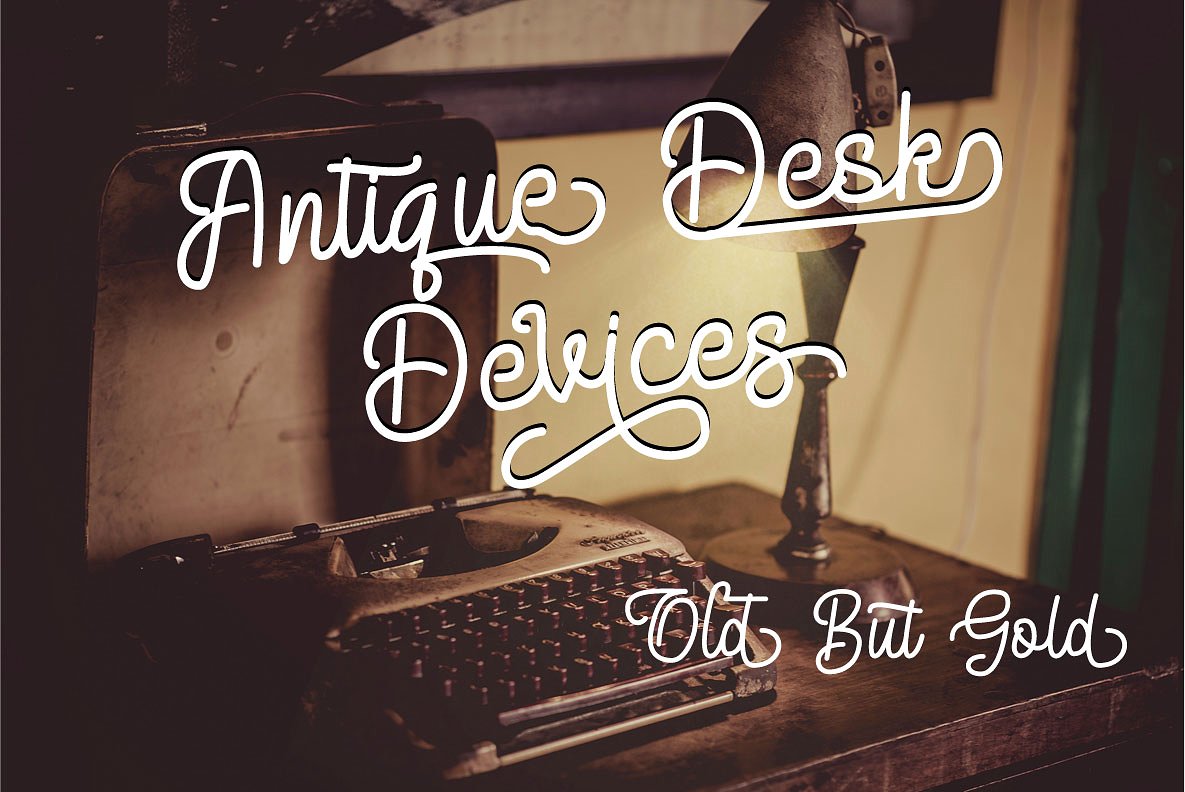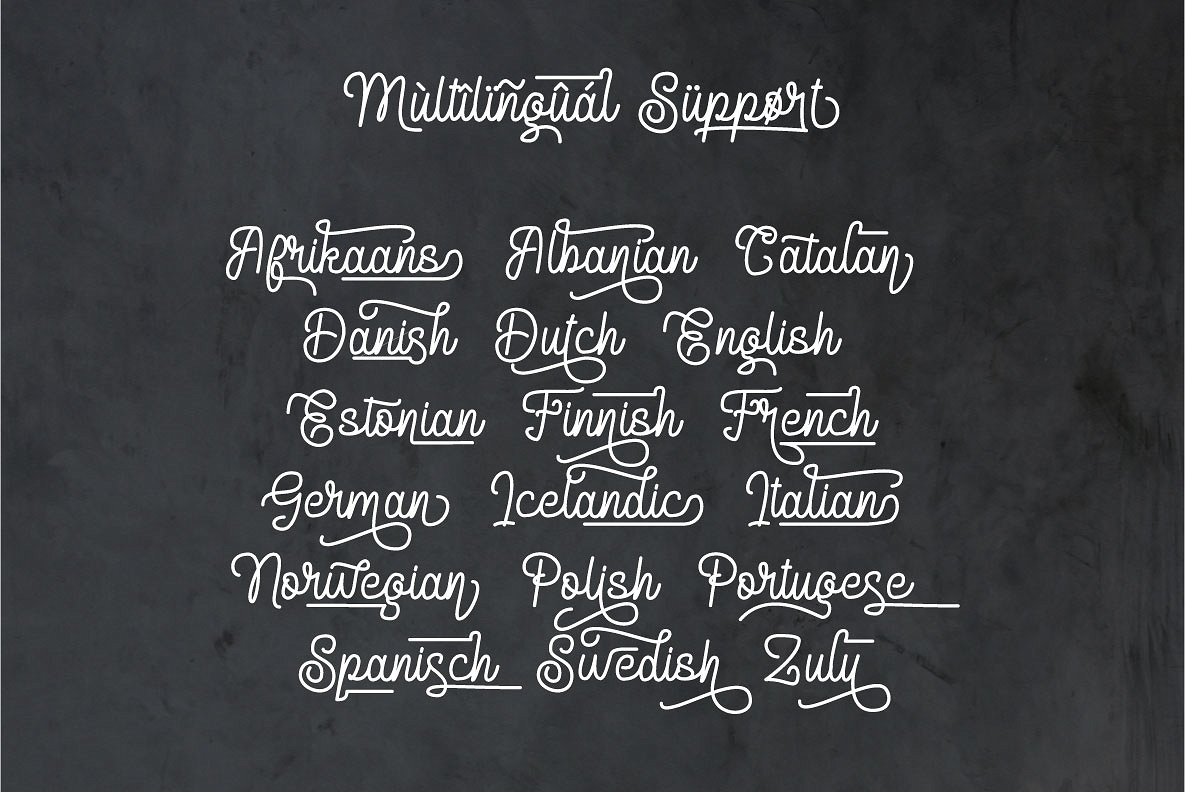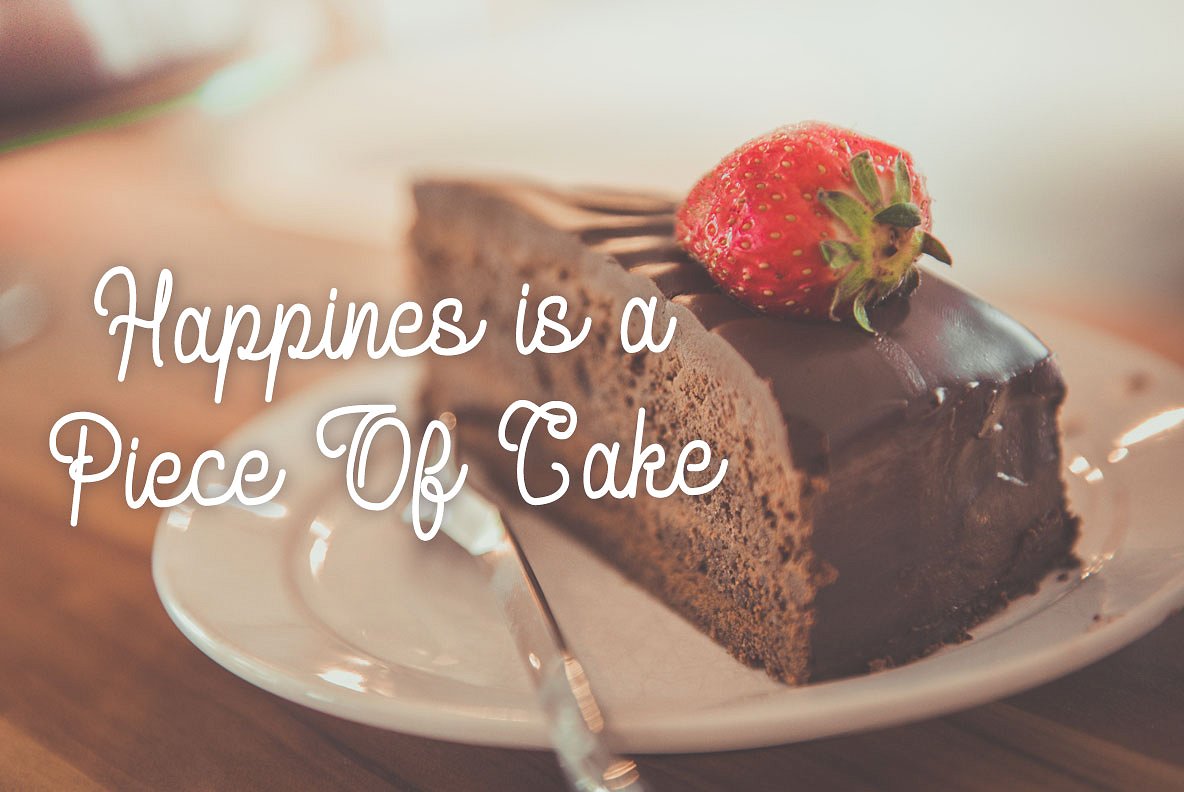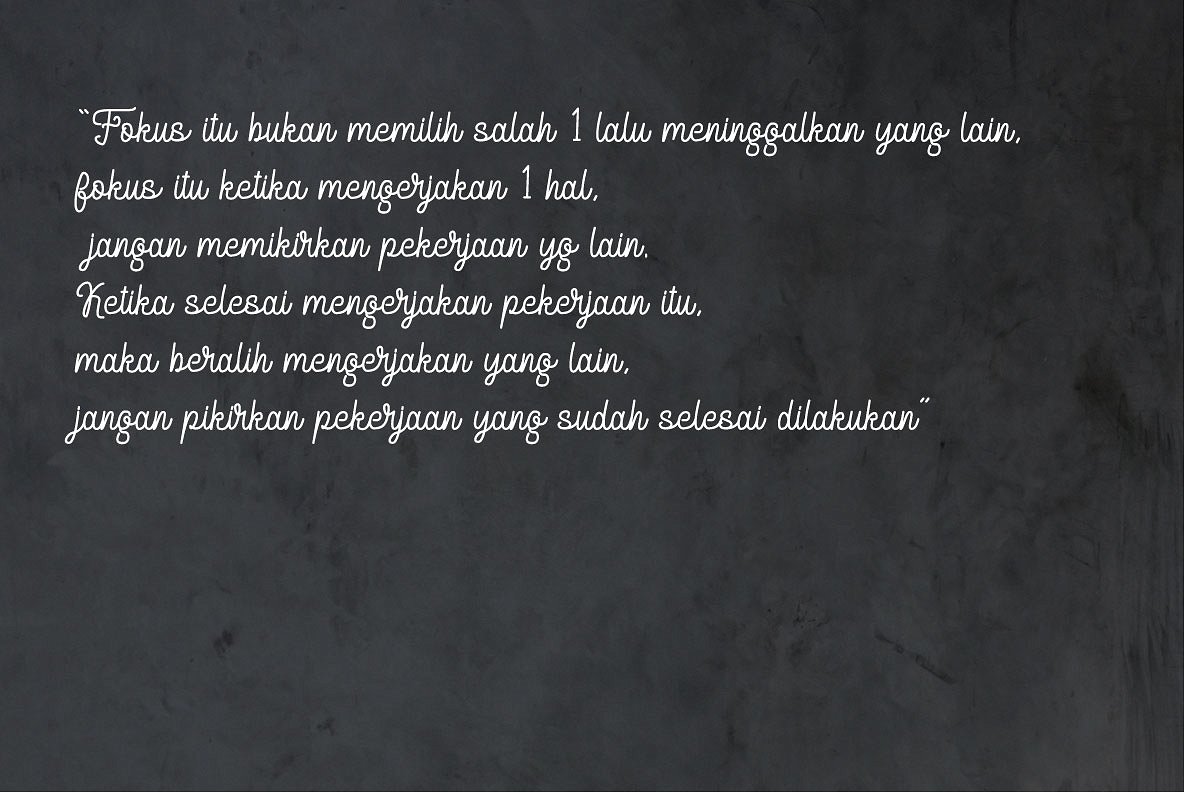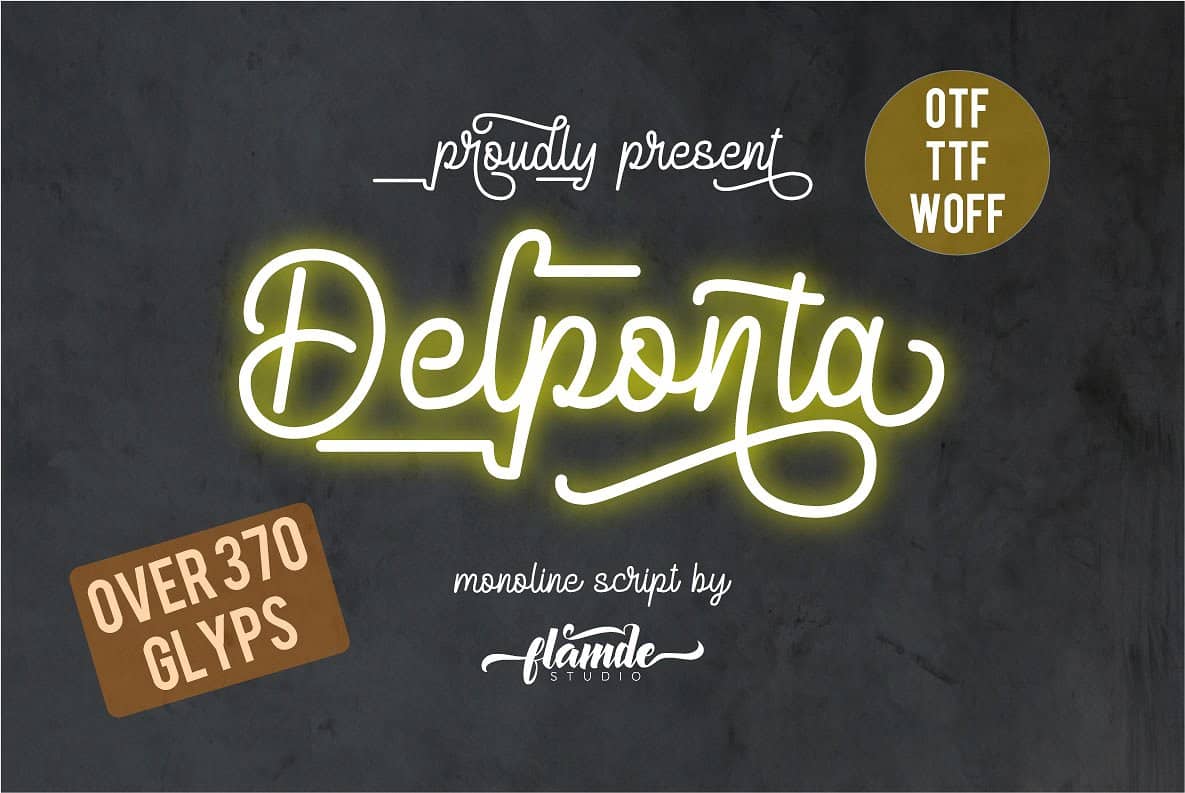
Delponta Script Font
I am happy to present you a modern calligraphy typeface. If you are looking for a calligraphy style suited to your design then it’s here! Introducing Delponta Font. Delponta Monoline Script Font designed and shared by Flamde Studio. Delponta is made with love and consistency which in the end looks elegant, simple, readable with The Perfect Curves, catchy, easy to used. Delponta Monoline Script Font is the great choice for Vintage Stationary, Food and Drink Poster, Logotype, Wedding, Neon Style, Watermark, Quotes, and your other design projects.